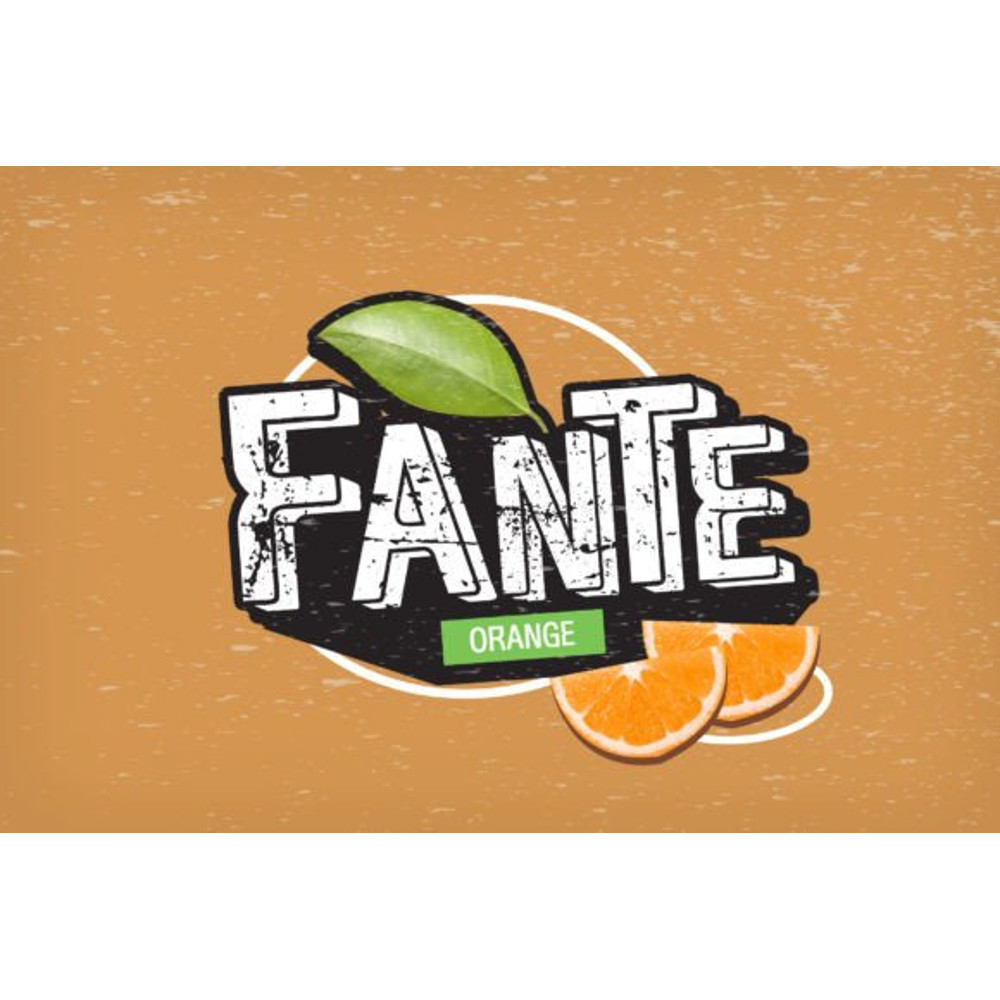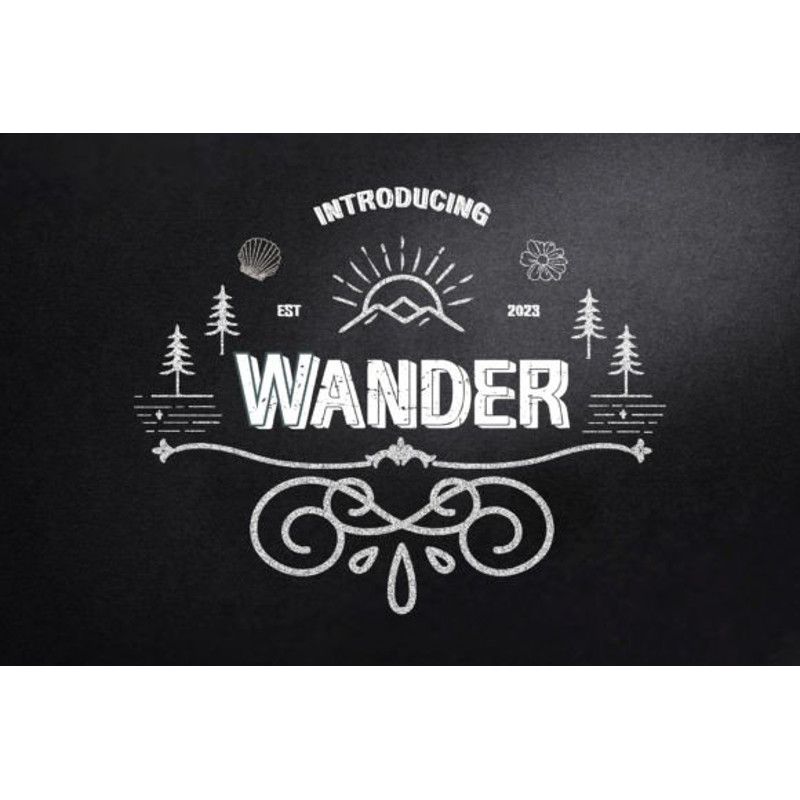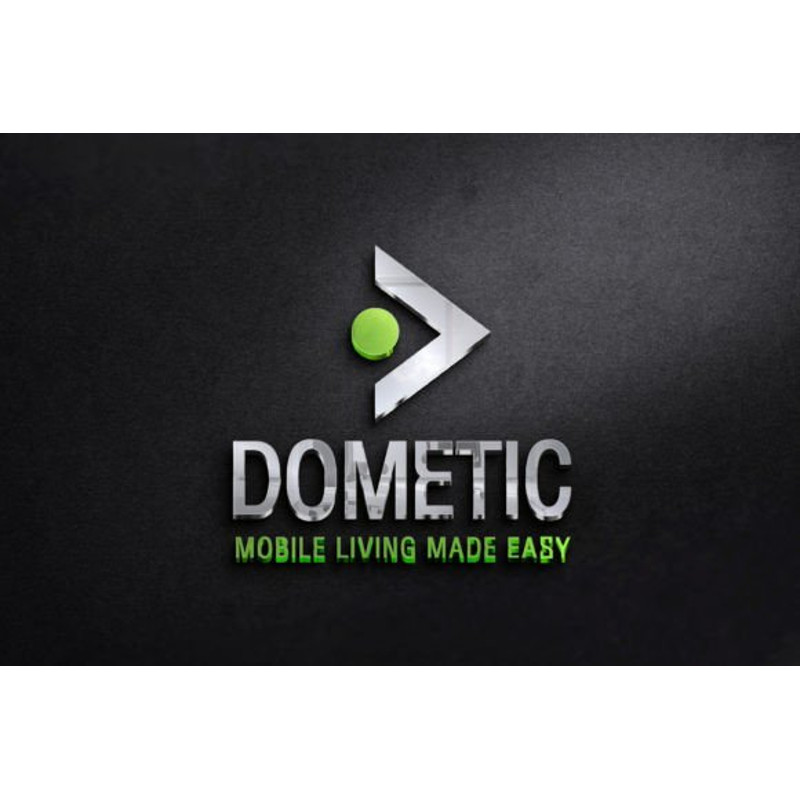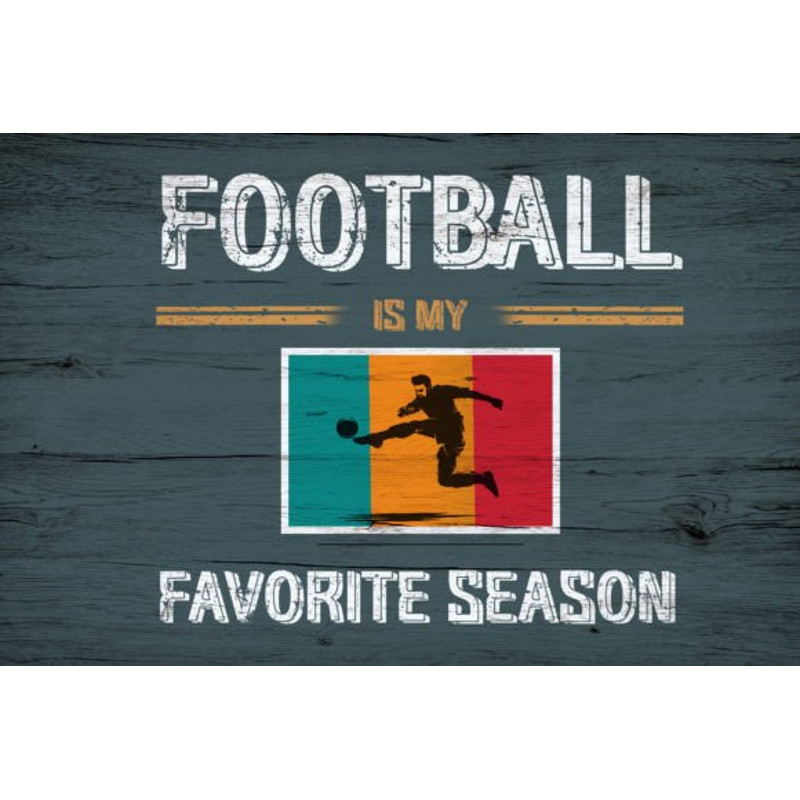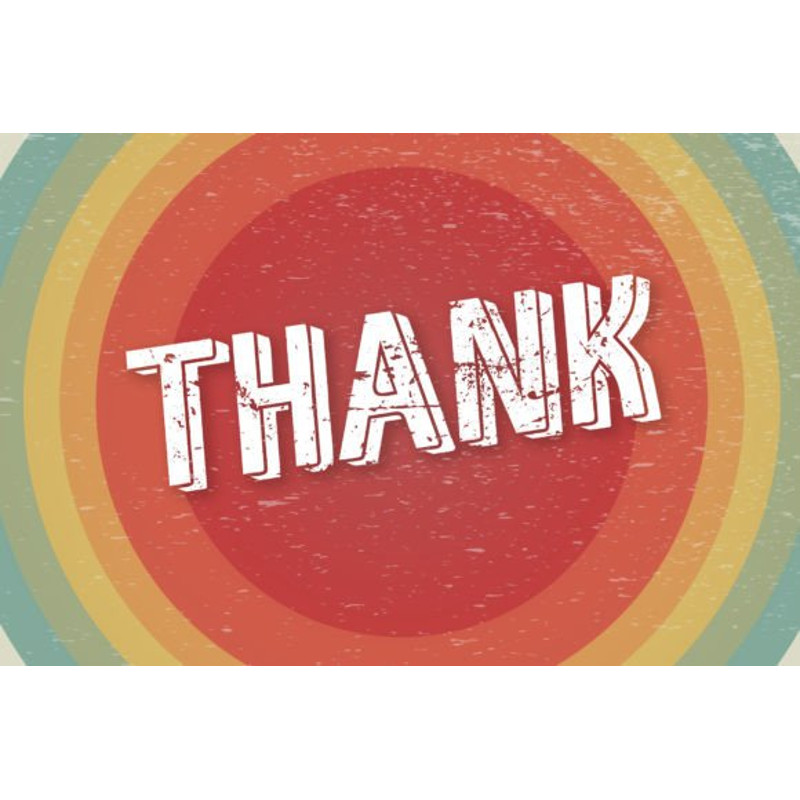
Adventure Font
Adventure is a vintage and Retro display font that will brighten up each of your designs. Add it confidently to your projects, and you will love the results.